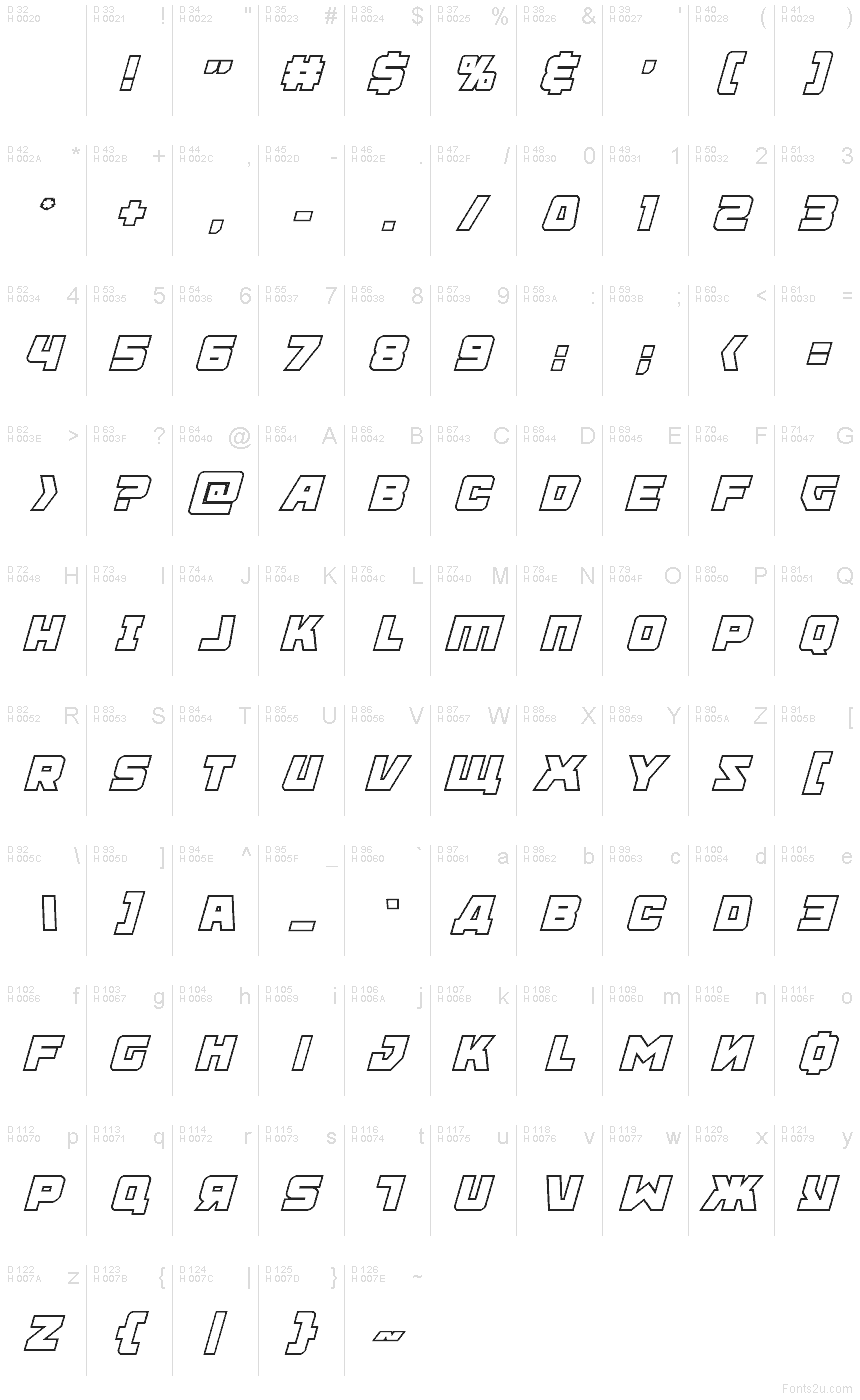
Kremlingrad Outline Italic
Kremlingrad Outline Italic font by Iconian Fonts is a free outlined faux-Russian display font. Part of the Kremlingrad family, it leans forward with hard-angled strokes and a crisp wireframe look, like metal letters bent into motion. The italic slant and beveled edges create a bold, high-contrast silhouette that reads fast and feels industrial, with just enough grit to suggest steel and neon.
Using Kremlingrad Outline Italic, headlines snap into place and stay legible even at extreme sizes. This free font shines on game logos, esports banners, poster titling, sci‑fi event graphics, album covers, and high-energy packaging. It works beautifully for short phrases that need impact and attitude. Pair it with a neutral geometric sans for body copy, and let the outline breathe with generous tracking.